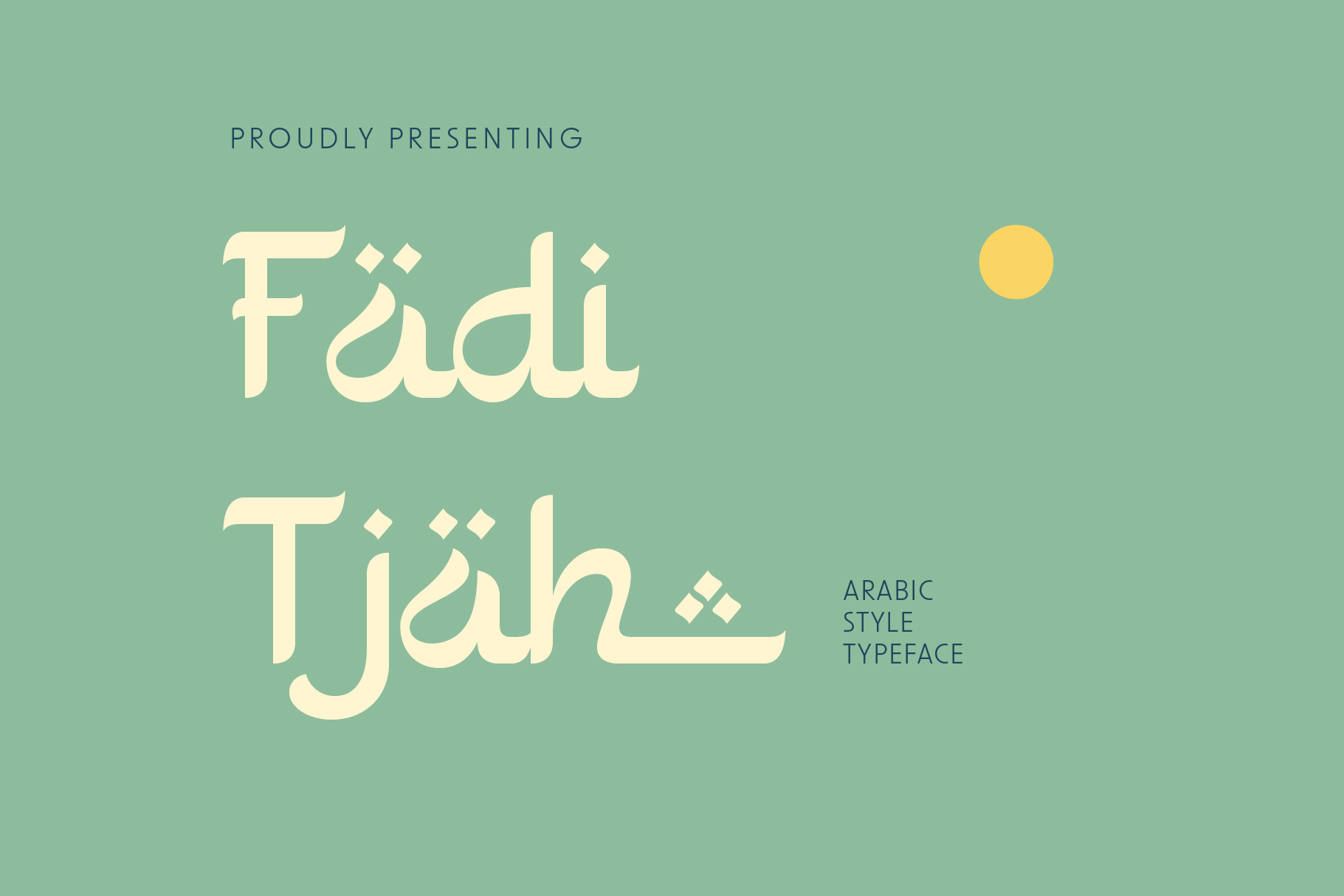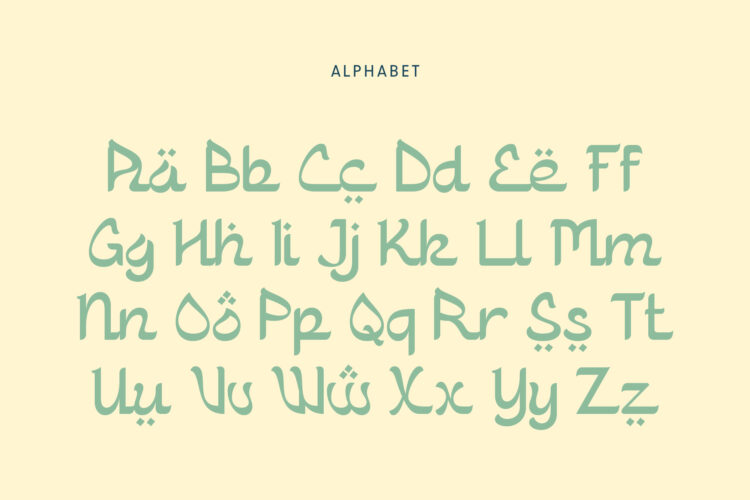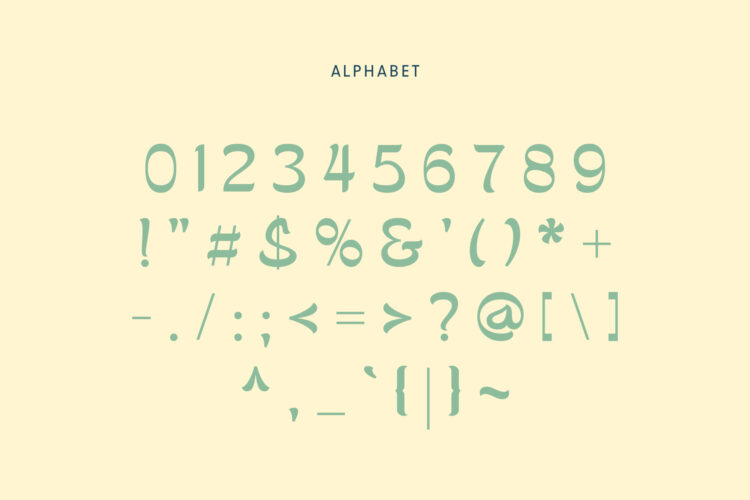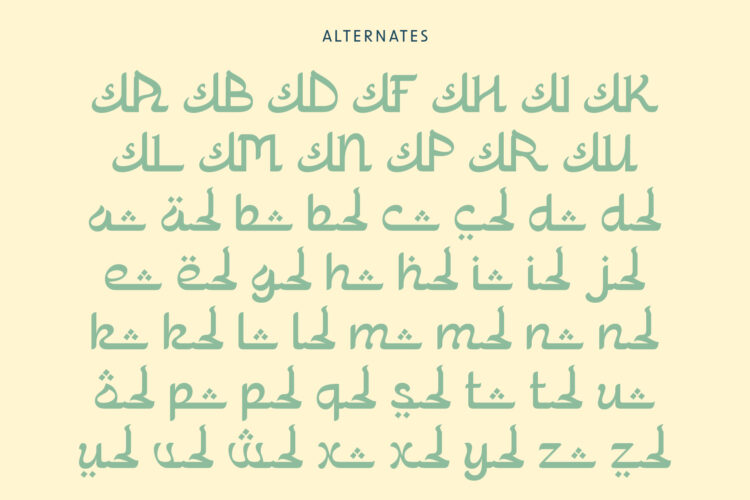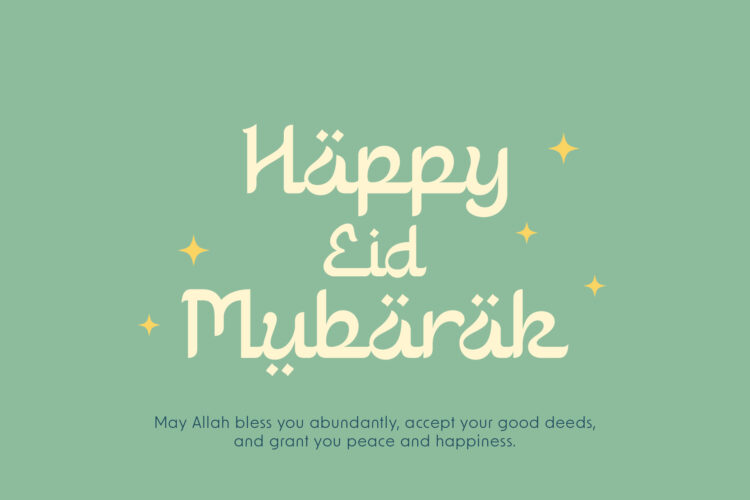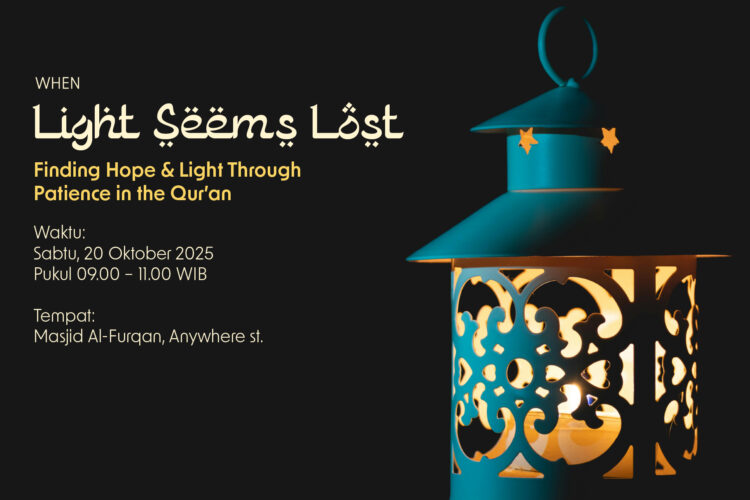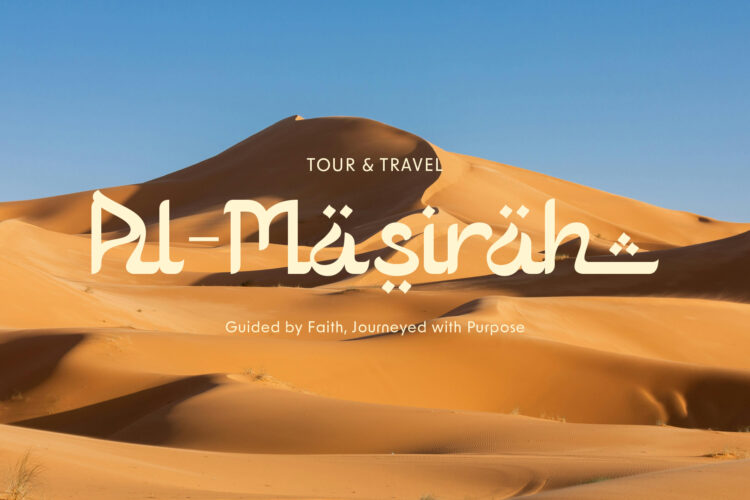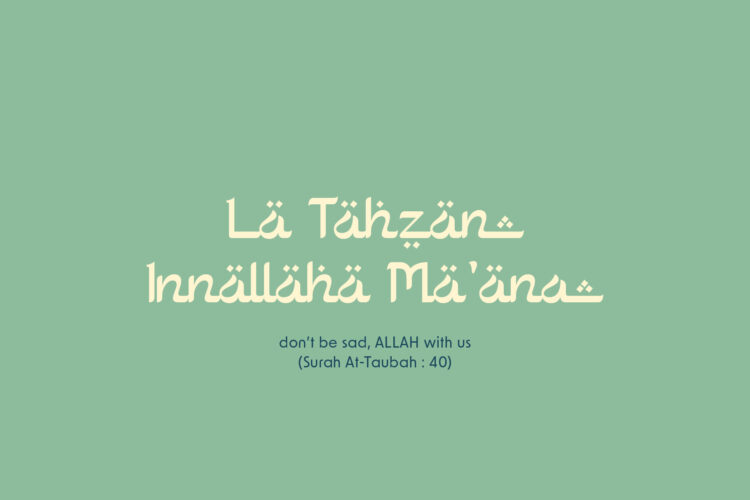
Faditjah is a captivating display typeface inspired by the rich aesthetics of Arabic calligraphy. With its elegant curves and bold personality, Faditjah brings an authentic Islamic flair to any design. Whether you’re working on a logo, product packaging, branding, or event promotion, this font will add a unique, spiritual touch that stands out.
Faditjah is the perfect choice for projects that seek a strong cultural or religious identity. Its style harmoniously blends modern display design with traditional Arabic elements, ideal for Ramadan promotions, or cultural festival visuals.
This font supports both uppercase and lowercase letters, numerals, and thoughtfully crafted ligatures for smooth, balanced typography. Faditjah also comes with an italic version for added versatility, allowing you to experiment with layout and emphasis.
Faditjah – Arabic Style Font